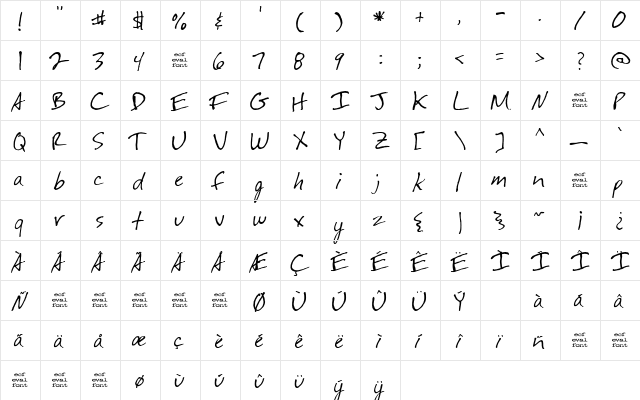
festus! (eval) Regular
Design Context for festus! (eval) Typeface
festus! (eval) is a composed and adaptable typeface that performs quietly and consistently across a wide range of design contexts.